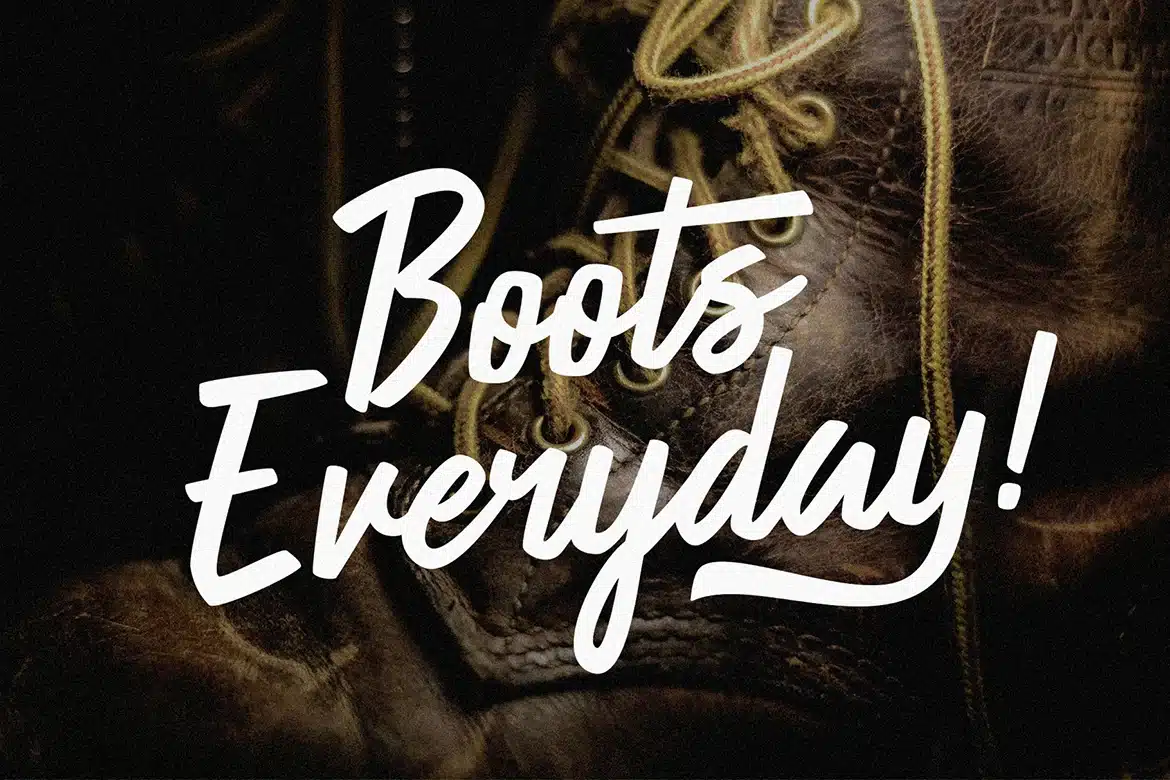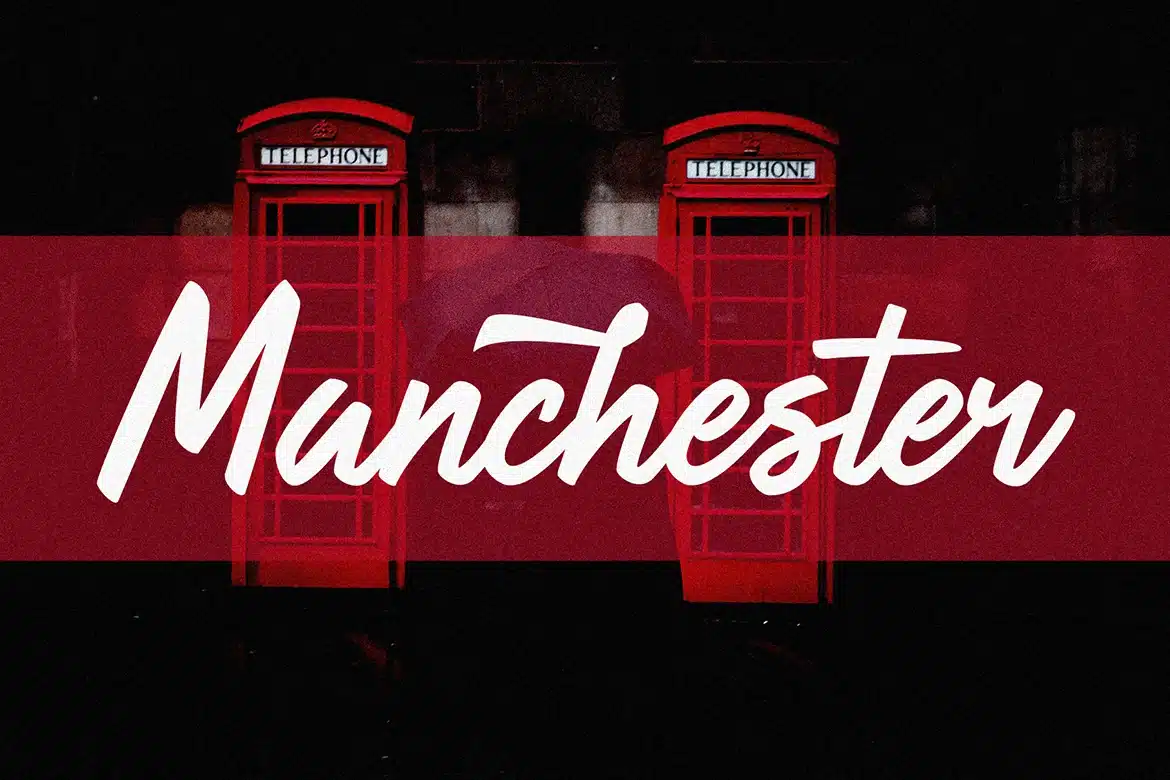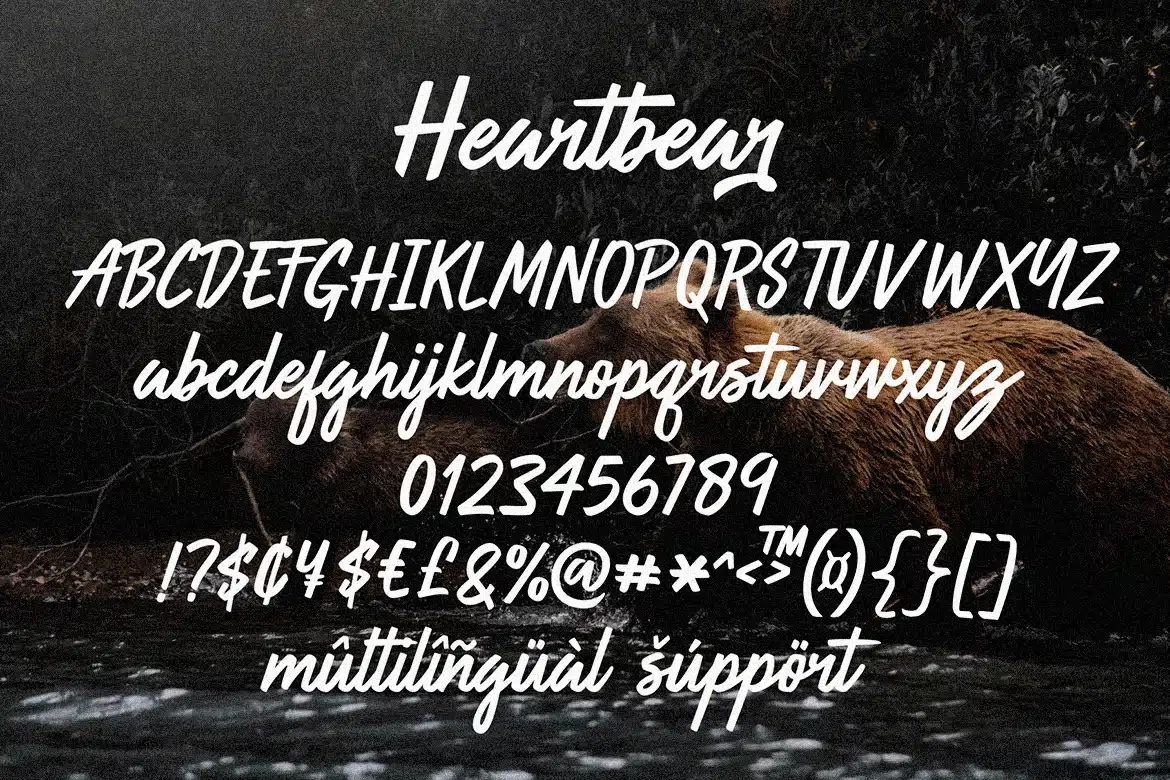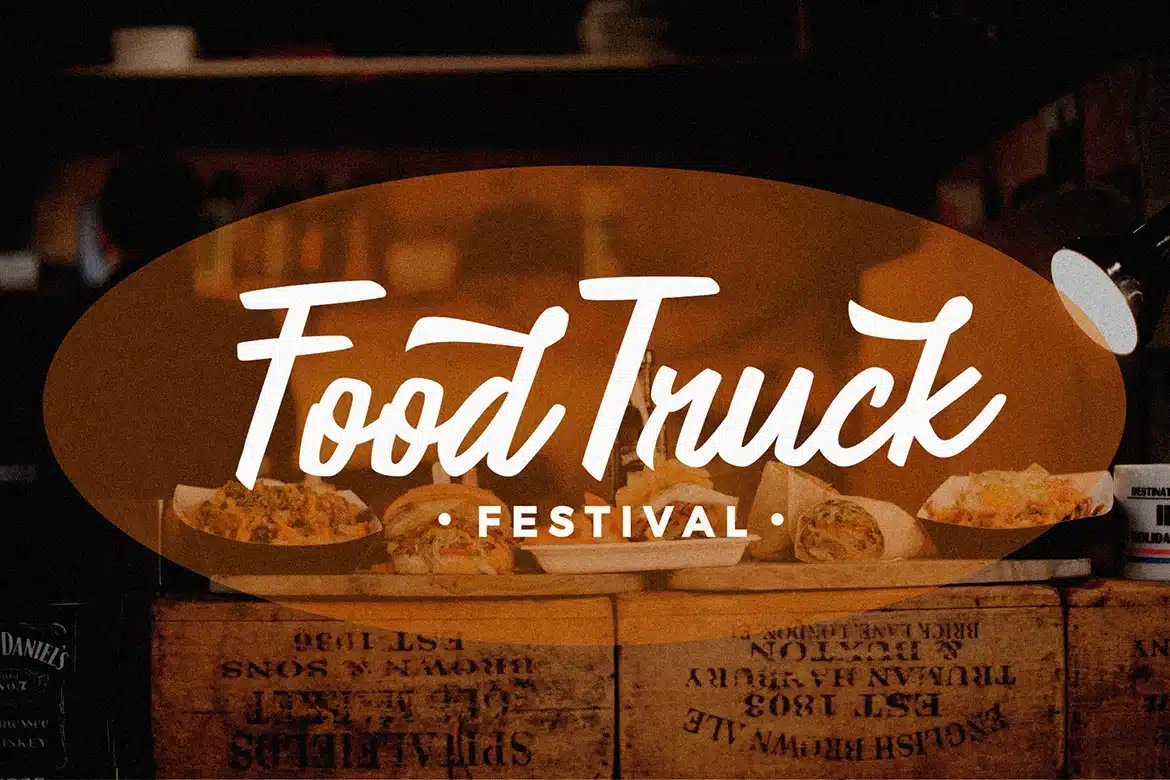
Heartbear – Logo Script Font
Say hello to HEARTBEAT! A new handwritten bold script font with a simple and classy style!
Really befit to all your design project,like invitation card,product logo,quotes, business card, food brand logo and much more.
Heartbeat coming with open type features like stylistic set 01and stylistic alternates and support PUA Encoded font files for use with software that doesn't support OpenType features such as Silhouette, Inkscape, etc